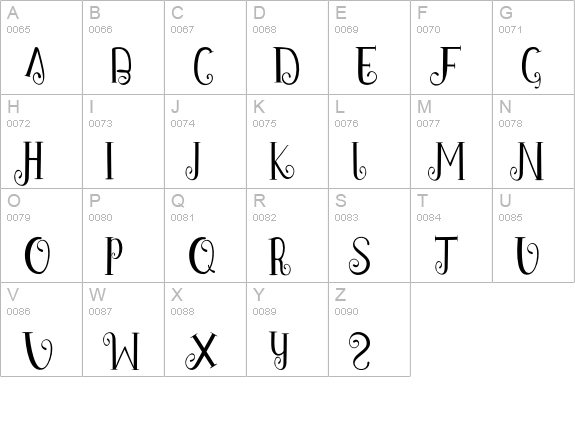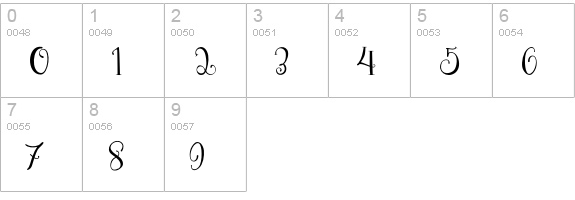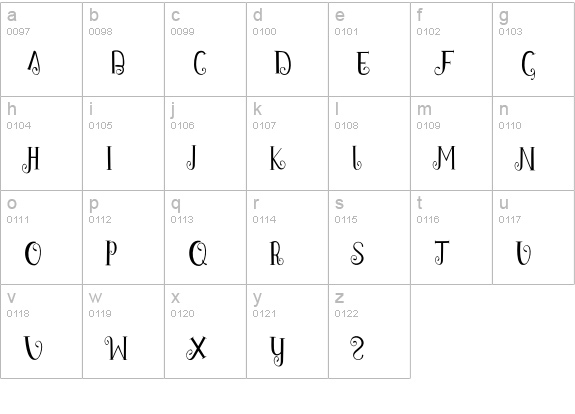
VINTAGEOS VAIN SERIF Font Details
Introducing VINTAGEOS VAIN SERIF font, a timeless typeface that effortlessly combines elegance with a touch of nostalgia. This vintage-inspired serif font exudes sophistication and charm, making it perfect for various design projects such as logos, branding, invitations, and more. With its clean lines and classic appeal, VINTAGEOS VAIN SERIF font adds a touch of refinement to any design it graces. Whether you're working on a modern website or a retro-inspired poster, this versatile font is sure to make a statement. Best of all, VINTAGEOS VAIN SERIF font is completely free to download at FontsMarket.com. So you can add this beautiful typeface to your collection without breaking the bank. Don't miss out on the opportunity to elevate your designs with the timeless beauty of VINTAGEOS VAIN SERIF font. Download it today and let your creativity shine!